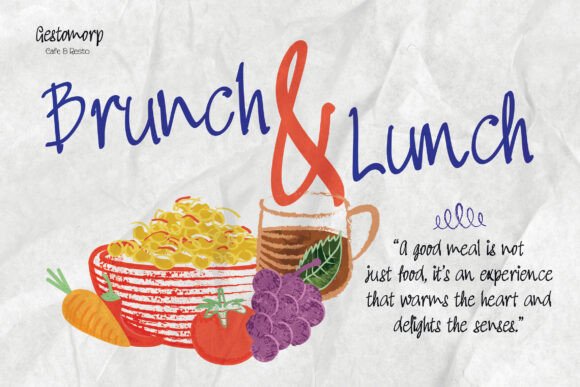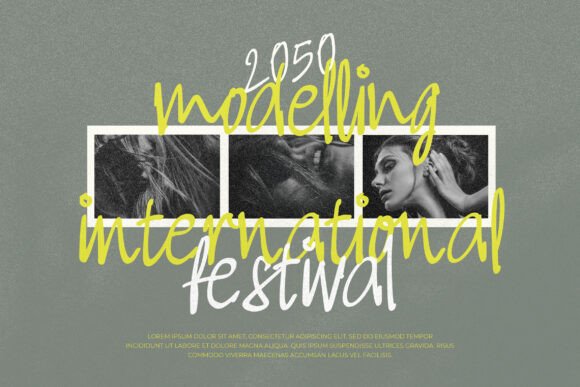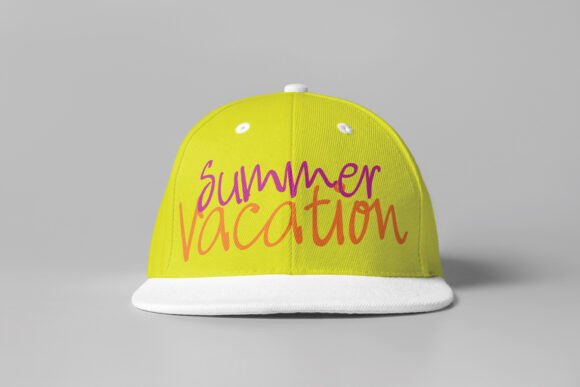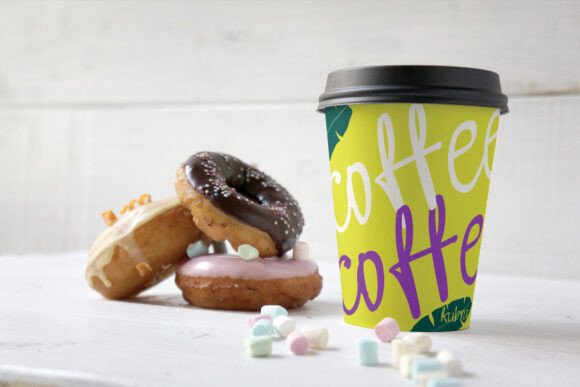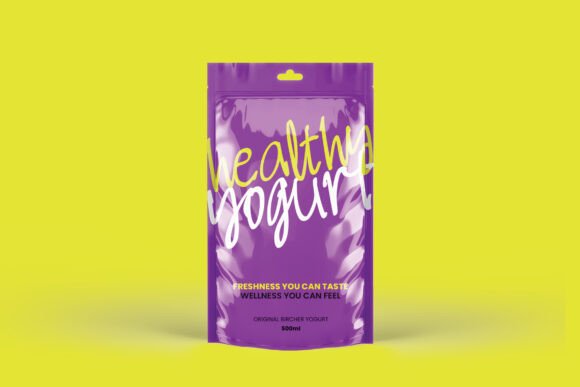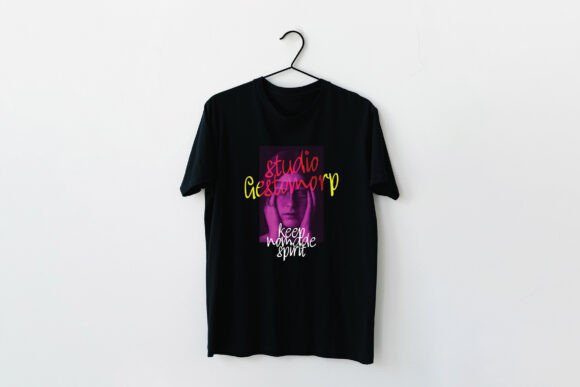
Introducing Gestomorp: The Charming Stylistic Handwritten Font for Your Creative Projects
In the world of typography, a good font can make all the difference in elevating your design from ordinary to extraordinary. For designers, crafters, and creatives looking for that special something to add a personal touch to their work, Gestomorp is here to shine. This charming stylistic handwritten font is designed to bring personality, elegance, and a natural flow to a wide range of projects, from logos and invitations to quotes and more.
The Beauty of Handwritten Typography
Handwritten fonts have a unique charm that digital and serif fonts often can’t replicate. They bring a sense of warmth, authenticity, and human touch to any piece of design. Gestomorp, with its stylistic handwritten flair, captures the essence of traditional handwriting while offering a modern and versatile appeal. Each letter is crafted with care, ensuring a natural flow that mimics the organic nature of handwriting.
Key Features of Gestomorp
- Charming and Elegant: Gestomorp is designed to add a touch of elegance and charm to your designs. Its stylistic approach makes it perfect for projects that require a bit of sophistication and personality.
- Natural Flow: The font boasts a natural flow that is reminiscent of genuine handwriting. This makes it highly readable and engaging, perfect for both digital and print media.
- Versatile: Whether you’re working on a logo, an invitation, a quote, or any other creative project, Gestomorp adapts seamlessly. Its versatility is one of its strongest assets, making it a valuable addition to any designer’s toolkit.
- Artistic Flair: Gestomorp isn’t just a font; it’s an artistic statement. It brings a creative flair to your designs that can set you apart from the crowd.
Use Cases for Gestomorp
So, where can you use Gestomorp? The possibilities are endless, but here are a few ideas to get you started:
- Logos and Branding: Use Gestomorp to create a memorable logo or to add a personal touch to your brand’s typography. Its elegance and charm can help your brand stand out.
- Invitations and Announcements: Add a touch of sophistication and warmth to your invitations, whether it’s for a wedding, a birthday party, or a corporate event.
- Quotes and Posters: Gestomorp can bring a new level of engagement to your quotes and posters. Its readability and artistic flair make it perfect for sharing inspiring messages.
- Packaging and Product Design: For crafters and product designers, Gestomorp can add a personal and handmade feel to product labels, packaging, and marketing materials.
Why Choose Gestomorp?
In a sea of fonts, Gestomorp stands out for its unique blend of charm, elegance, and versatility. Here are a few reasons why designers and crafters are choosing Gestomorp for their projects:
- Unique Personality: Gestomorp brings a distinct personality to your designs, setting them apart from more generic or standard fonts.
- Easy to Read: Despite its stylistic nature, Gestomorp is highly legible, making it suitable for both short phrases and longer texts.
- Customizable: As a digital font, Gestomorp can be easily manipulated and customized to fit the specific needs of your project.
Gestomorp is more than just a font; it’s a design element that can elevate your creative projects to new heights. With its charming stylistic handwritten appearance, natural flow, and artistic flair, it’s the perfect choice for designers and crafters looking to add a personal touch to their work. Whether you’re creating logos, invitations, quotes, or any other type of design, Gestomorp is sure to bring personality, elegance, and a touch of magic to your creations.